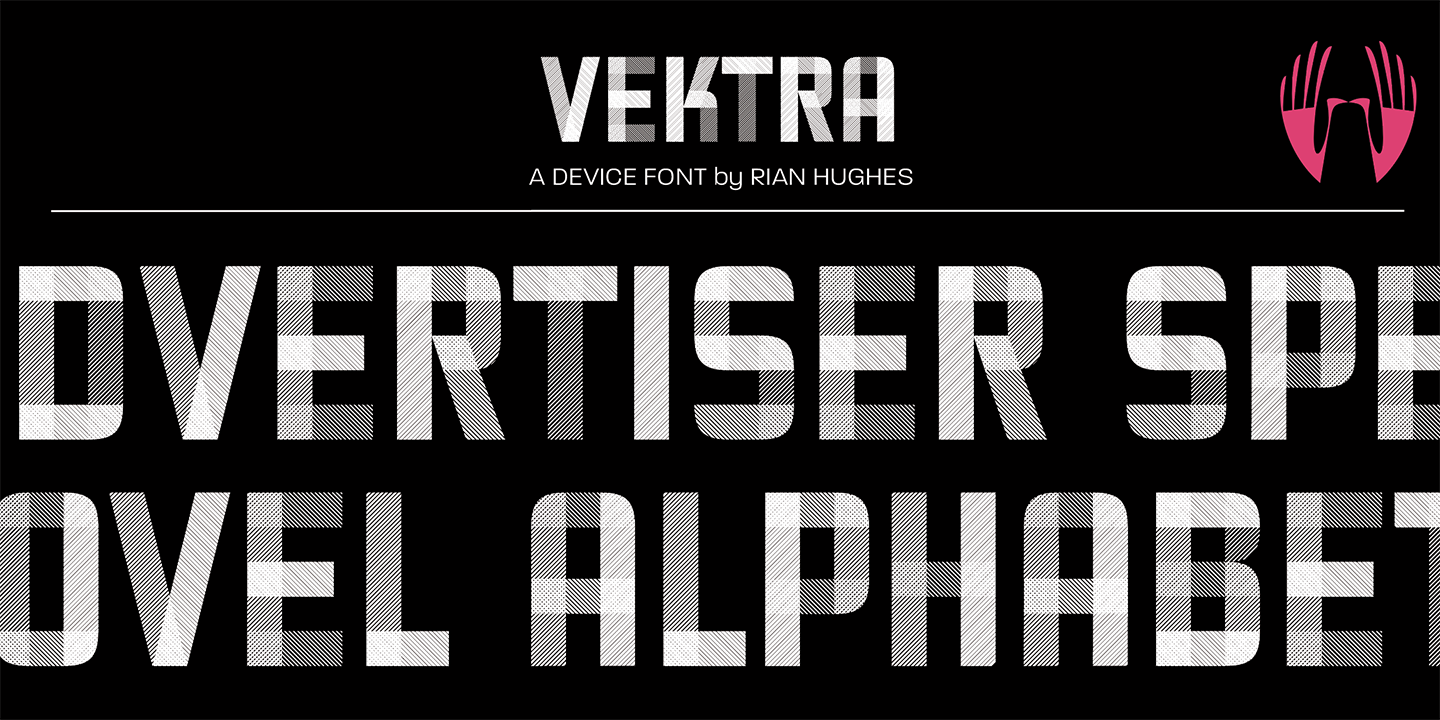
Add futuristic style and high-impact design to your projects with Vektra Font Free Download. This bold, geometric sans-serif typeface features sharp angles, clean lines, and a modern digital aesthetic—perfect for tech branding, esports graphics, app interfaces, posters, and innovative product packaging. Vektra Font Free Download delivers a strong, confident look that captures attention and reflects forward-thinking design.
The sleek and minimal design of Vektra Font makes it highly versatile for both display and text use. Whether you're creating tech startup logos, sci-fi themed visuals, or bold promotional content, this font provides a clean, powerful voice that stands out in both print and digital formats.